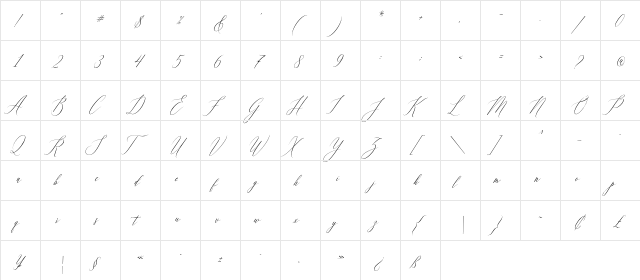
Feelsmooth Regular
Design Context for Feelsmooth Typeface
Feelsmooth is a composed and adaptable typeface that performs quietly and consistently across a wide range of design contexts.